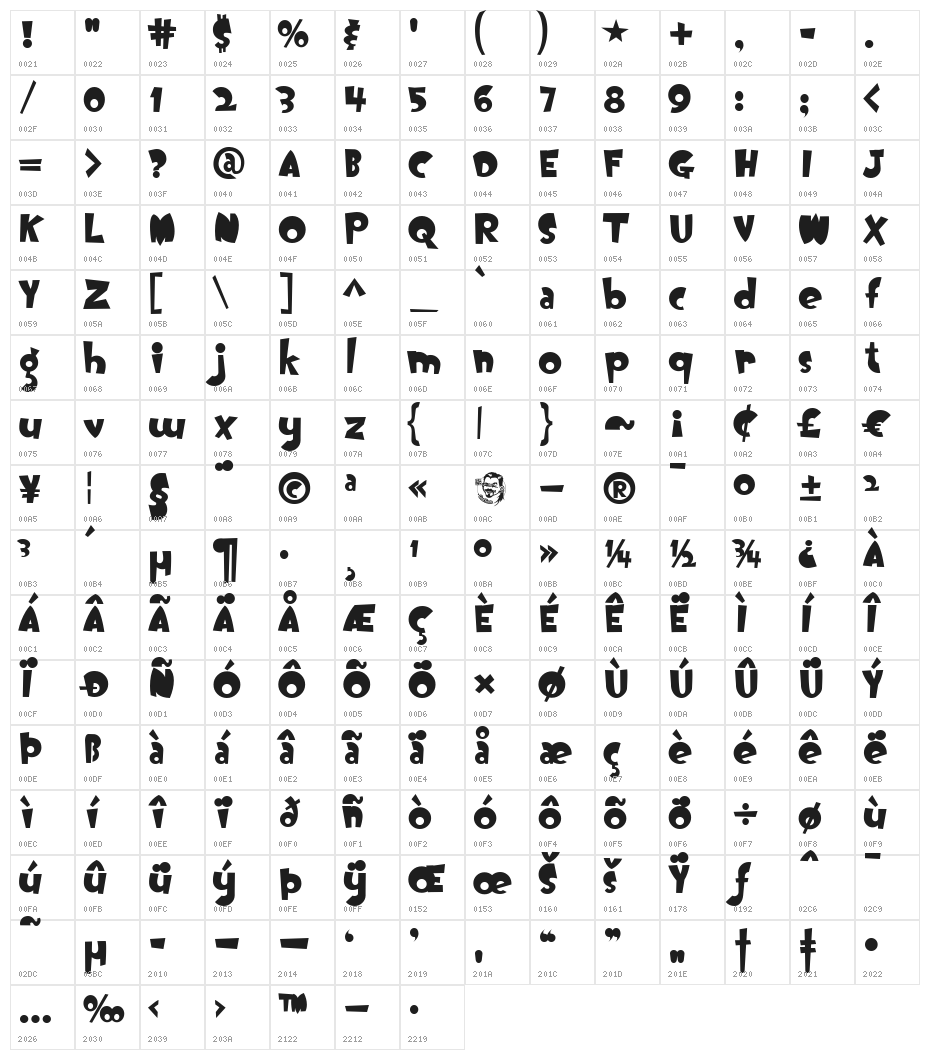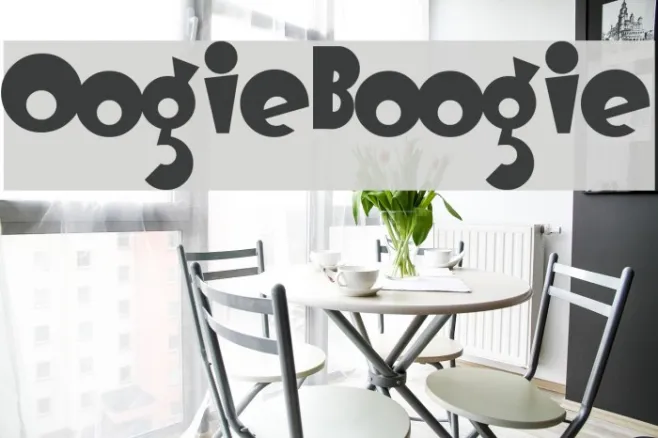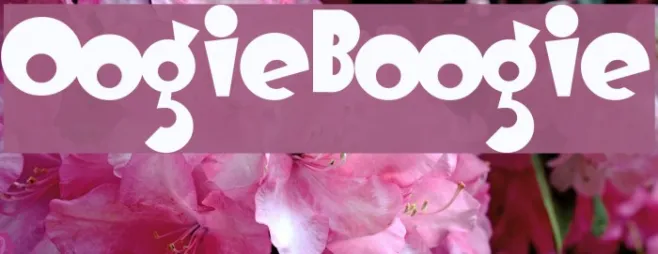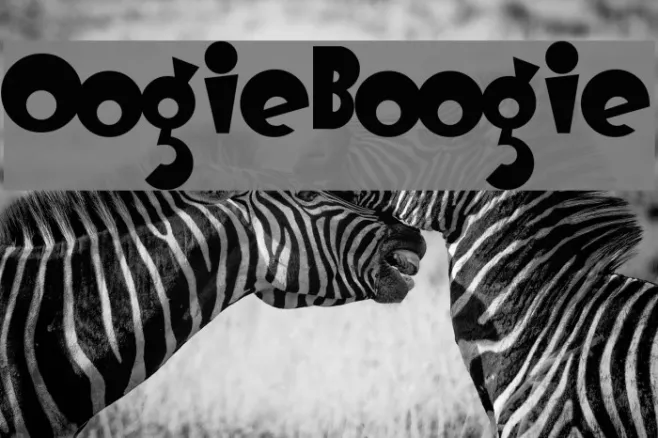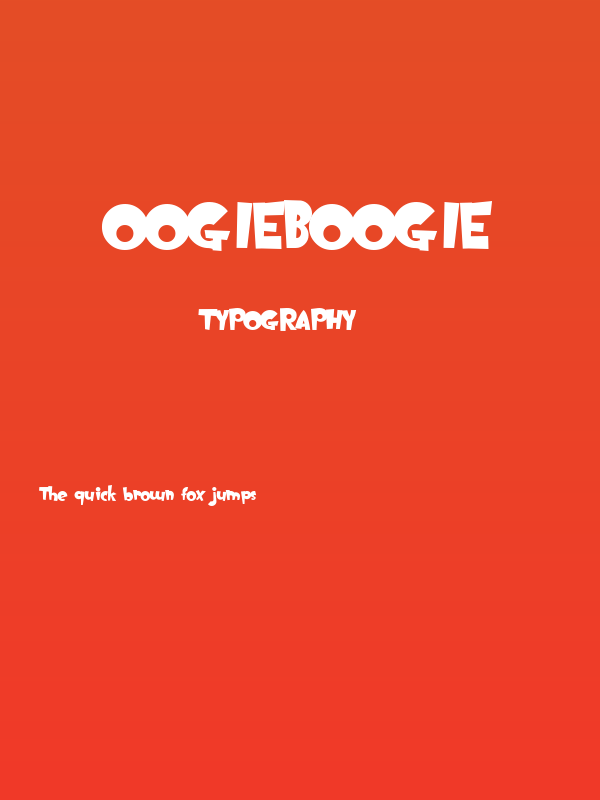
OogieBoogie Font
OogieBoogie Description
This font features a playful and whimsical design, characterized by its bold and exaggerated letterforms. The characters have a cartoonish and slightly irregular appearance, with varying stroke widths that add to its quirky charm. The uppercase and lowercase letters maintain a consistent style, with rounded edges and a sense of movement. The numbers and special characters are equally dynamic, contributing to the overall lively aesthetic. This font is ideal for projects that require a fun and informal touch, making it suitable for children's books, party invitations, or playful branding.
| Overall Style | Playful, Whimsical, Cartoonish |
| Proposed Projects | Children's books, party invitations, playful branding, posters, and greeting cards. |